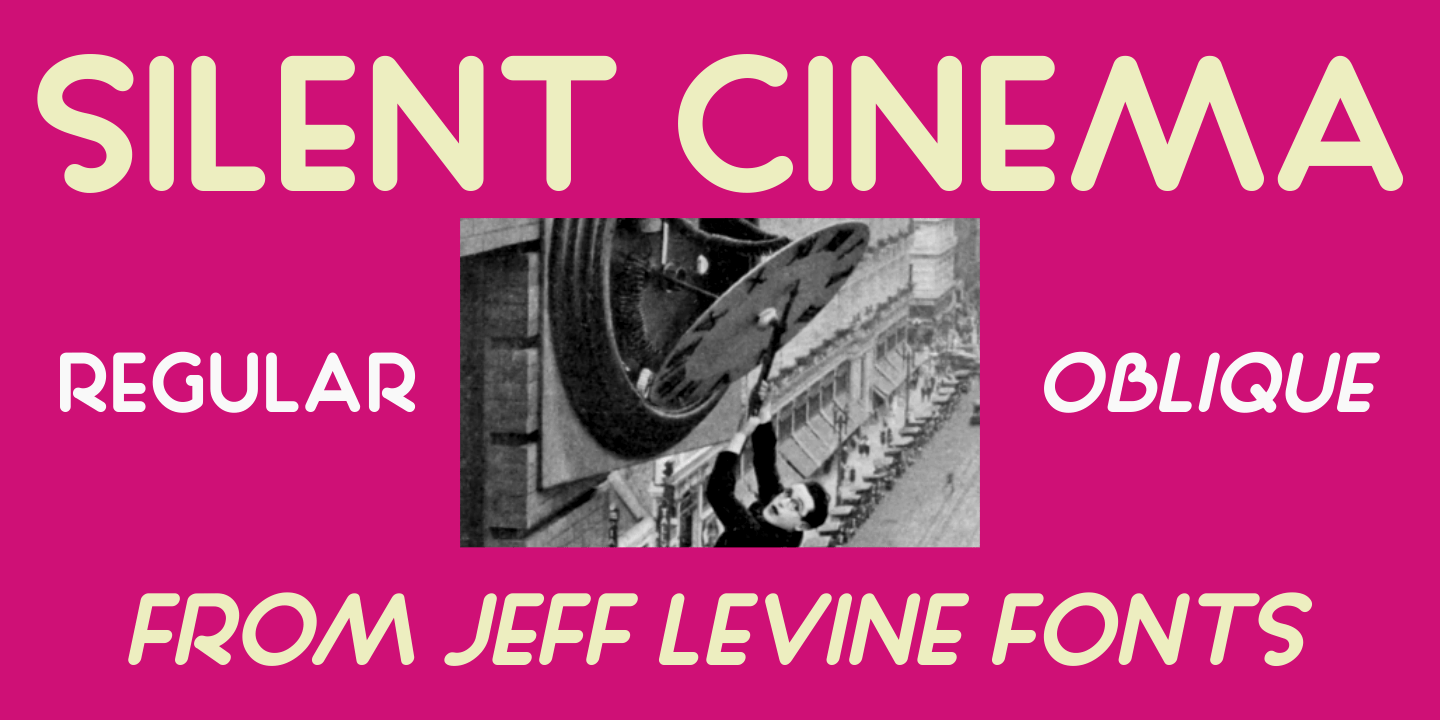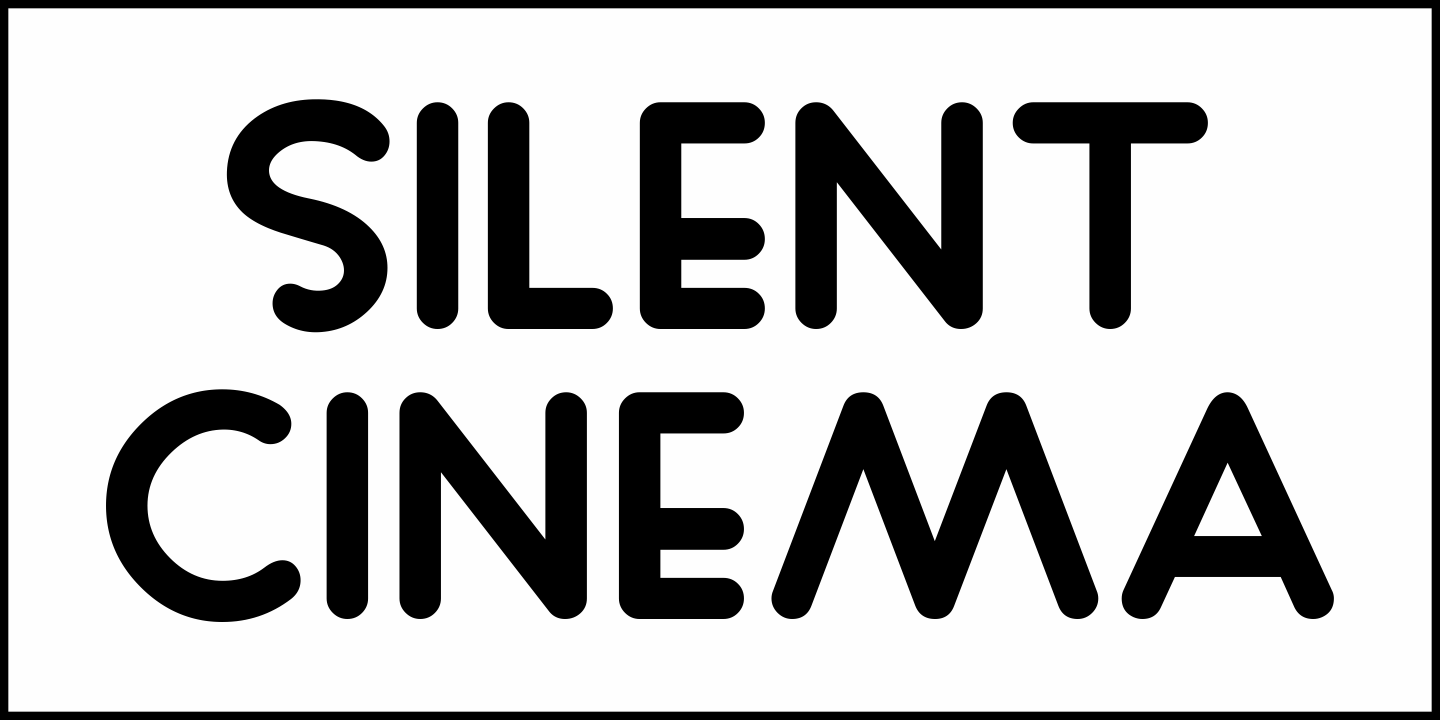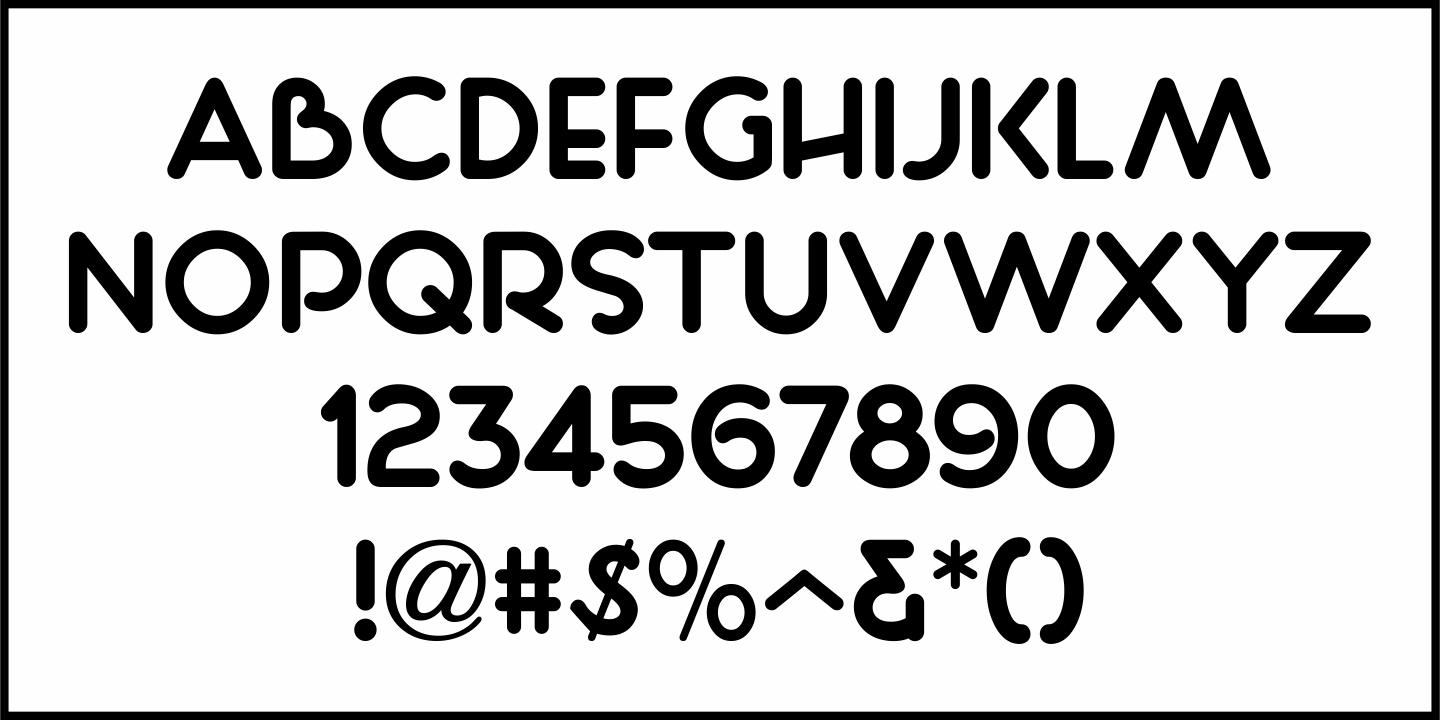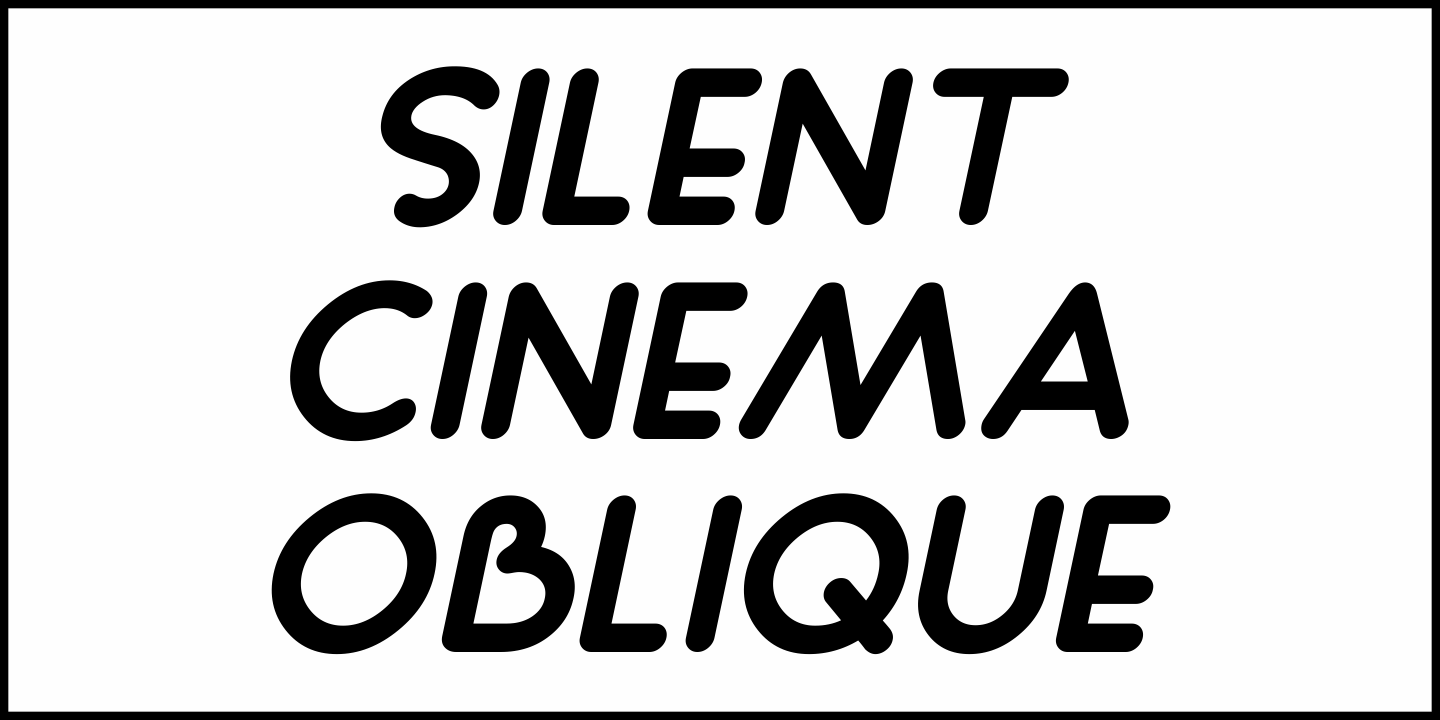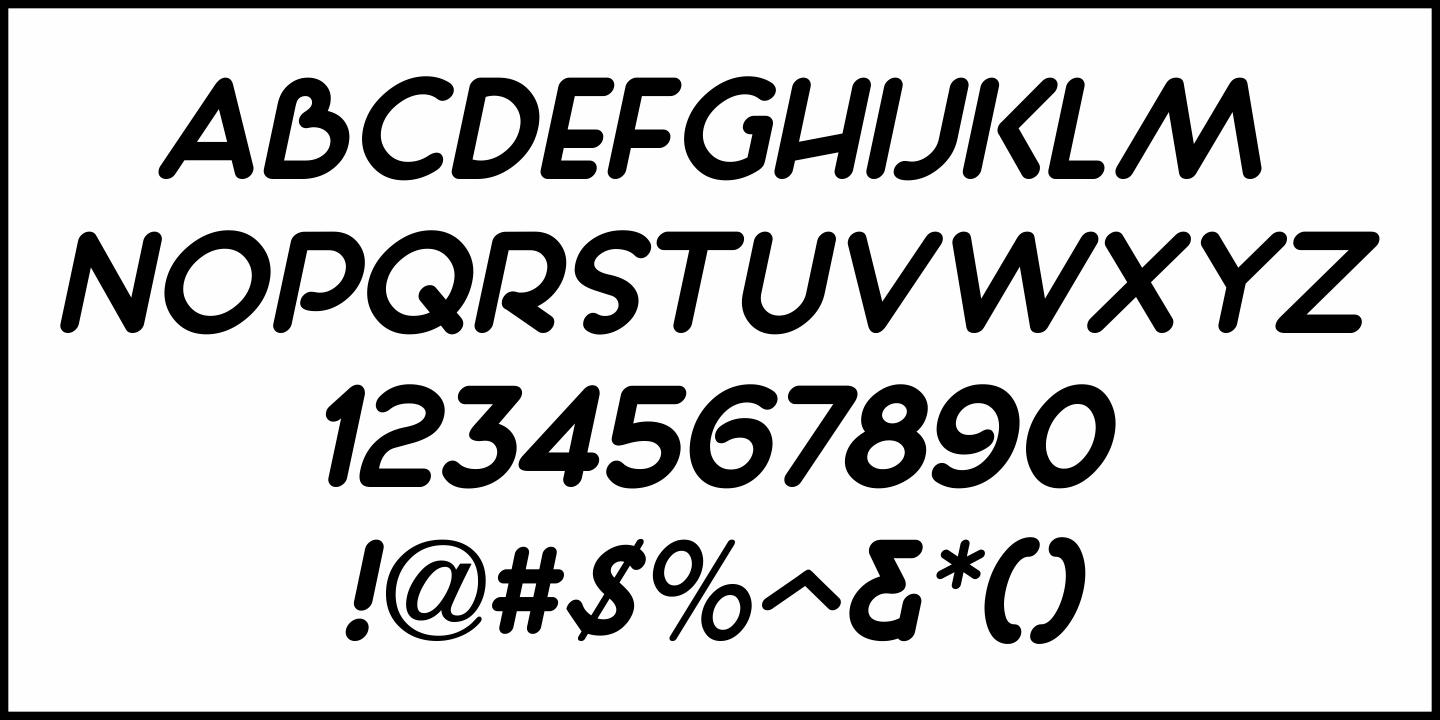
Silent Cinema
'The Film Daily' issue for August 30, 1927 ran an ad for Tiffany Pictures in which all of the main text was hand lettered in a sans serif style displaying the beginnings of the Art Deco movement.
With their rounded terminals, the characters were designed using a round nib lettering pen.
Redrawn digitally as Silent Cinema JNL, it is now available in both regular and oblique versions.